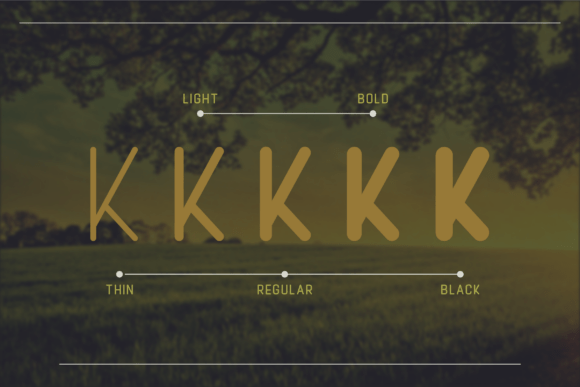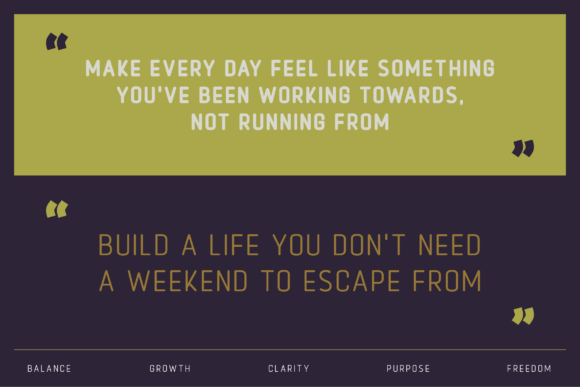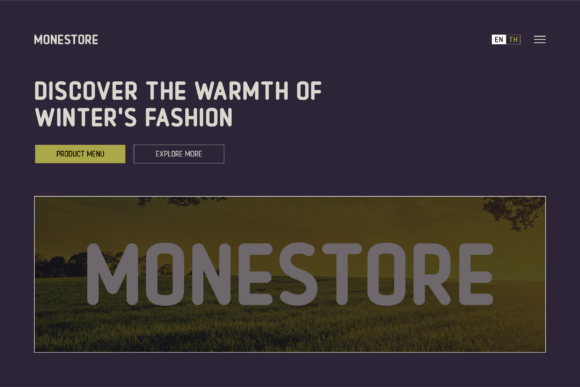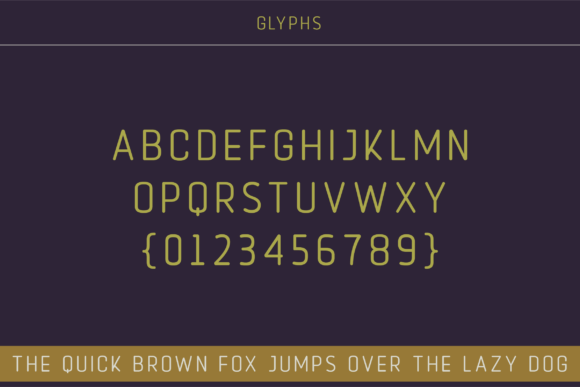
Discover the Power of Escopedia Rounded: A Modern Sans Serif Font
I’ll never forget the design struggle I faced while working on a branding project for a new coffee shop. My client wanted a clean, friendly, and approachable visual identity, but I was stuck finding the perfect font. That was until I stumbled upon Escopedia Rounded, a game-changing font family that brought clarity, warmth, and bold personality to the table. In this article, I’ll share my experience with Escopedia Rounded, its features, and how to make the most of it in your creative projects.
What Makes Escopedia Rounded Special?
Escopedia Rounded is a modern all-caps sans serif font family designed to bring a polished, confident touch to your designs. Its soft-rounded edges and sleek, geometric construction make it both highly legible and aesthetically balanced. The font family comes in five versatile weights: Thin, Light, Regular, Bold, and Black, allowing you to adapt it to various design needs.
• Clean and Friendly Aesthetic: Escopedia Rounded strikes the perfect balance between clean lines and friendly curves, making it ideal for a wide range of design projects.
• High Legibility: The font’s geometric construction and soft-rounded edges ensure that it remains highly legible, even at smaller sizes.
• Versatile Weights: With five weights to choose from, you can use Escopedia Rounded for both headlines and body text, or create a bold visual hierarchy.
• 🤔 Limited Use in Body Text: While Escopedia Rounded is excellent for headlines and titles, it might not be the best choice for lengthy body text due to its all-caps design.
Escopedia Rounded was designed with the goal of creating a clean, friendly, and approachable font family that could be used in a wide range of design projects. The designer aimed to craft a font that would bring clarity, warmth, and bold personality to creative projects, while also being highly legible and aesthetically balanced.
Q: What is Escopedia Rounded?
A: Escopedia Rounded is a modern all-caps sans serif font family designed to bring clarity, warmth, and bold personality to creative projects.
Q: What weights does Escopedia Rounded come in?
A: Escopedia Rounded comes in five versatile weights: Thin, Light, Regular, Bold, and Black.
Q: Can I use Escopedia Rounded for body text?
A: While Escopedia Rounded is excellent for headlines and titles, it might not be the best choice for lengthy body text due to its all-caps design.
Q: Is Escopedia Rounded suitable for digital designs?
A: Yes, Escopedia Rounded is highly legible and aesthetically balanced, making it suitable for a wide range of digital designs, including social media visuals, websites, and more.